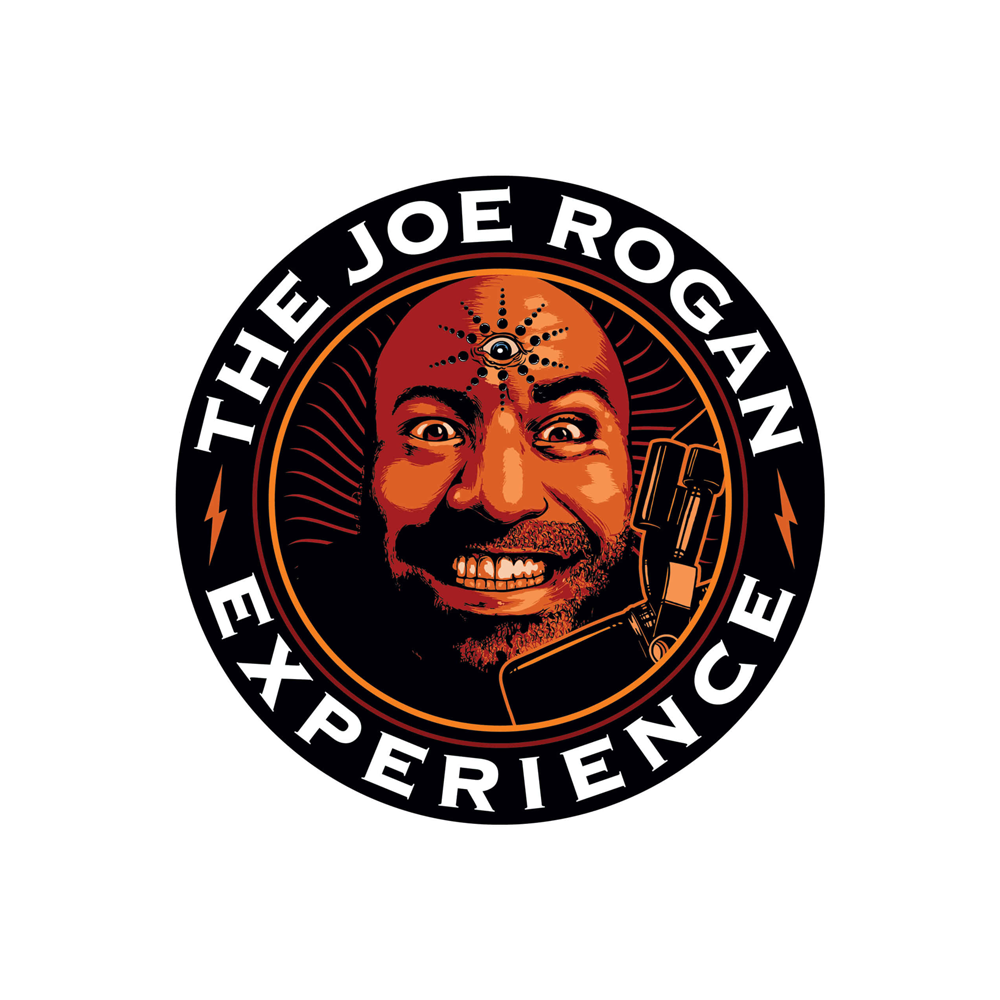
The Joe Rogan Experience Font
LogoThe Joe Rogan Experience, often simply called JRE, is a long-form conversation podcast hosted by comedian, UFC color commentator, and television host Joe Rogan. The podcast covers a wide array of topics, featuring a variety of guests, including actors, musicians, political figures, athletes, authors, and other notable individuals from various fields.
The font used in the JRE logo is Copperplate Gothic. Copperplate Gothic is a sophisticated typeface designed by Frederic W. Goudy in 1901, characterized by its wide, clear letters and small, glyphic serifs, often used for formal and professional purposes such as engraved or embossed lettering.